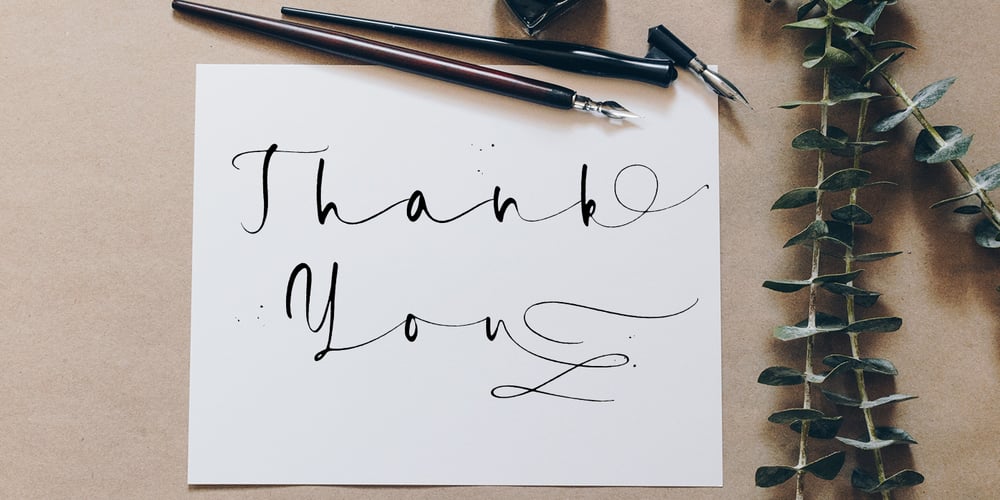
Briosh Font Family was designed by Pavel Larin and published by Larin Type Co. Briosh contains 2 styles and family package options. Briosh – a hand drawn script font. Beautiful and elegant but at the same time unique thanks to its ending letters. It is stretched and not in a hurry , attracts attention and is perfect for creating logos, greeting cards, branding, book covers and many others. Alternative characters will help you create a project that is not repeatable. I decided to reflect this font in two styles, clean and rough, as you can see in the preview image. Enjoy using!